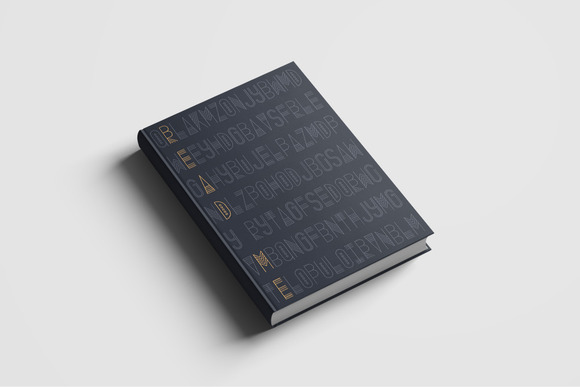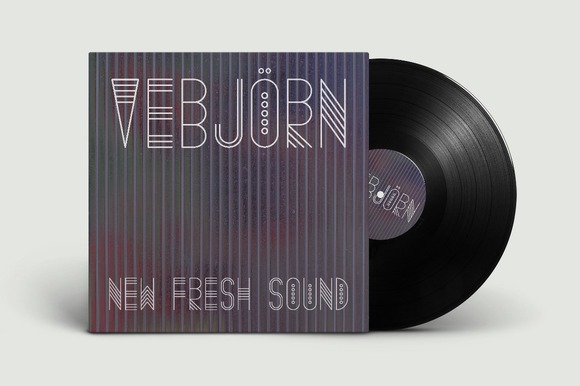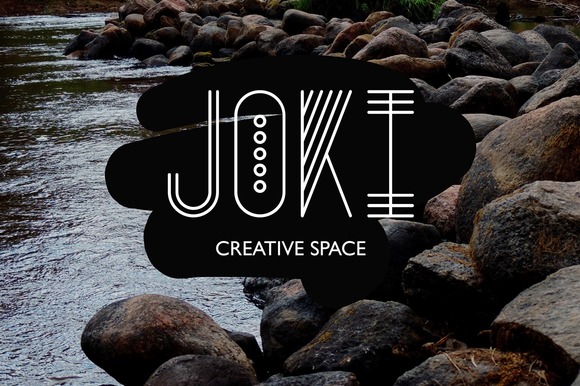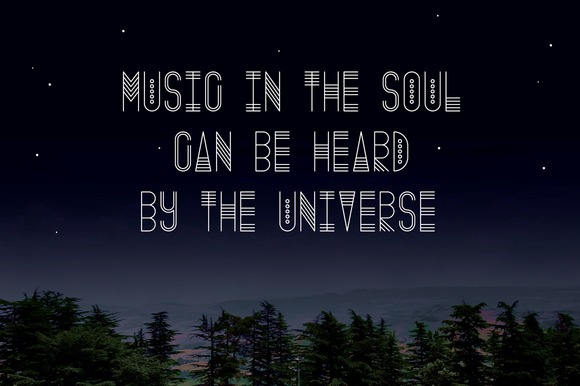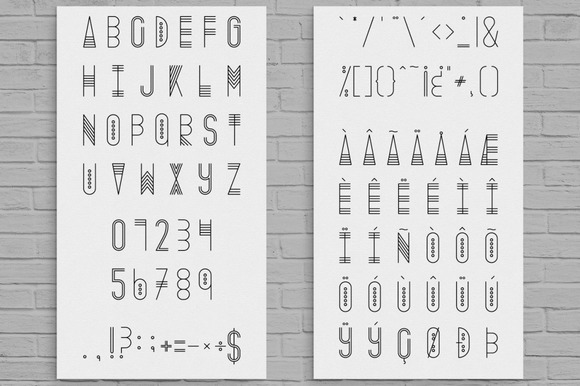
Astrid Font: Elevate Your Designs with a Unique Ethnic Flair
In the world of typography, fonts play a crucial role in conveying the tone and personality of a brand or design. For designers and crafters looking to add a touch of ethnic elegance and freshness to their work, the Astrid font is an excellent choice. This thin decorative font boasts an unusual look that is perfect for creating stunning logos, brand names, short phrases, advertising presentations, and stylish posters.
What Makes Astrid Font Stand Out?
Astrid’s unique selling point lies in its ethnic nature, combined with a sleek, thin design. This combination gives the font a distinctive appearance that can instantly elevate the visual appeal of any design project. Whether you’re working on a logo, a poster, or an advertising campaign, Astrid’s fresh and unconventional look is sure to capture attention and leave a lasting impression.
Key Features of Astrid Font
- Ethnic Inspiration: Astrid’s design is inspired by ethnic typography, giving it a unique and exotic flair.
- Thin Decorative Style: The font’s thin lines and decorative elements make it perfect for designs where elegance and subtlety are key.
- Fresh and Unusual Look: Astrid’s unconventional design ensures that your projects stand out from the crowd.
- Versatility: Suitable for a wide range of design projects, including logos, brand names, short phrases, advertising presentations, and stylish posters.
Perfect Use Cases for Astrid Font
Astrid’s versatility makes it suitable for various design applications. Here are some ideal use cases for this unique font:
- Logos and Brand Names: Astrid’s distinctive look makes it perfect for creating memorable logos and brand names that stand out.
- Advertising Presentations: Add an ethnic touch to your advertising materials with Astrid’s fresh and elegant design.
- Stylish Posters: Whether you’re promoting an event, a product, or an idea, Astrid font can help you create visually stunning posters.
- Short Phrases and Quotes: Astrid’s decorative style adds a touch of sophistication to short phrases and quotes, making them perfect for social media posts, flyers, or brochures.
Tips for Using Astrid Font Effectively
To make the most of Astrid’s unique design, consider the following tips:
- Pair with Complementary Fonts: Combine Astrid with simpler fonts to create a balanced and visually appealing design.
- Experiment with Colors: Astrid’s thin design works well with a variety of colors. Experiment with different color schemes to find the perfect match for your project.
- Use for Headlines and Titles: Astrid’s decorative style makes it perfect for headlines and titles. Use it to draw attention to key information.
Astrid font is a valuable addition to any designer’s toolkit. Its unique blend of ethnic inspiration and thin decorative style makes it perfect for creating stunning design projects. Whether you’re a professional designer or a crafter, Astrid can help you elevate your work and leave a lasting impression on your audience. So, why settle for ordinary fonts when you can add an exotic touch to your designs with Astrid?